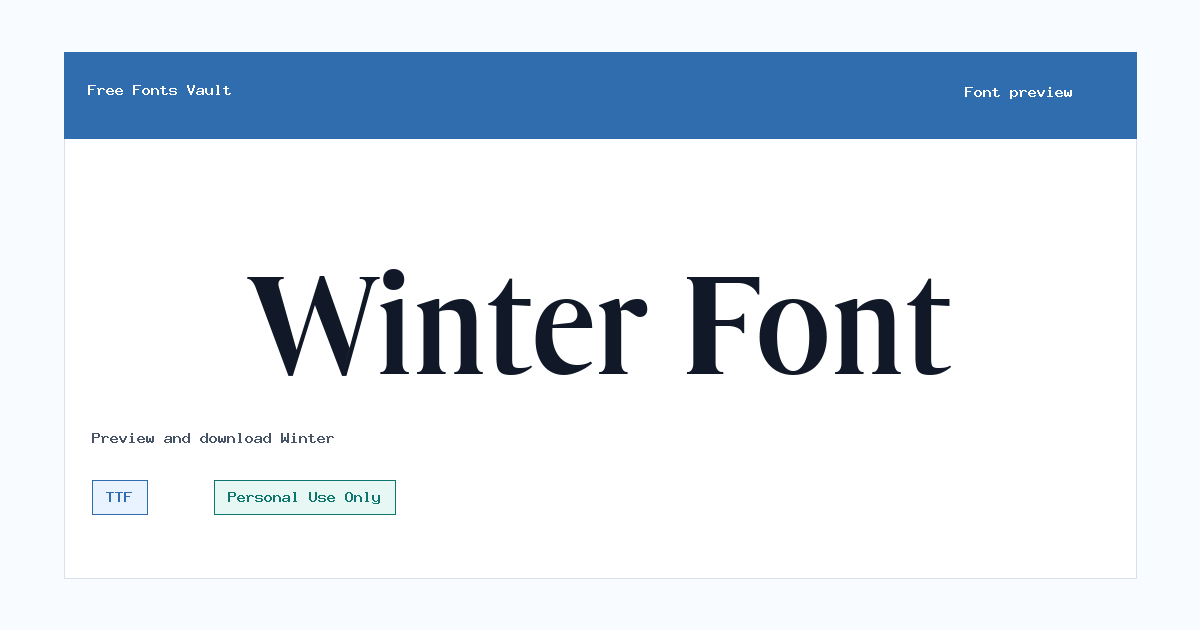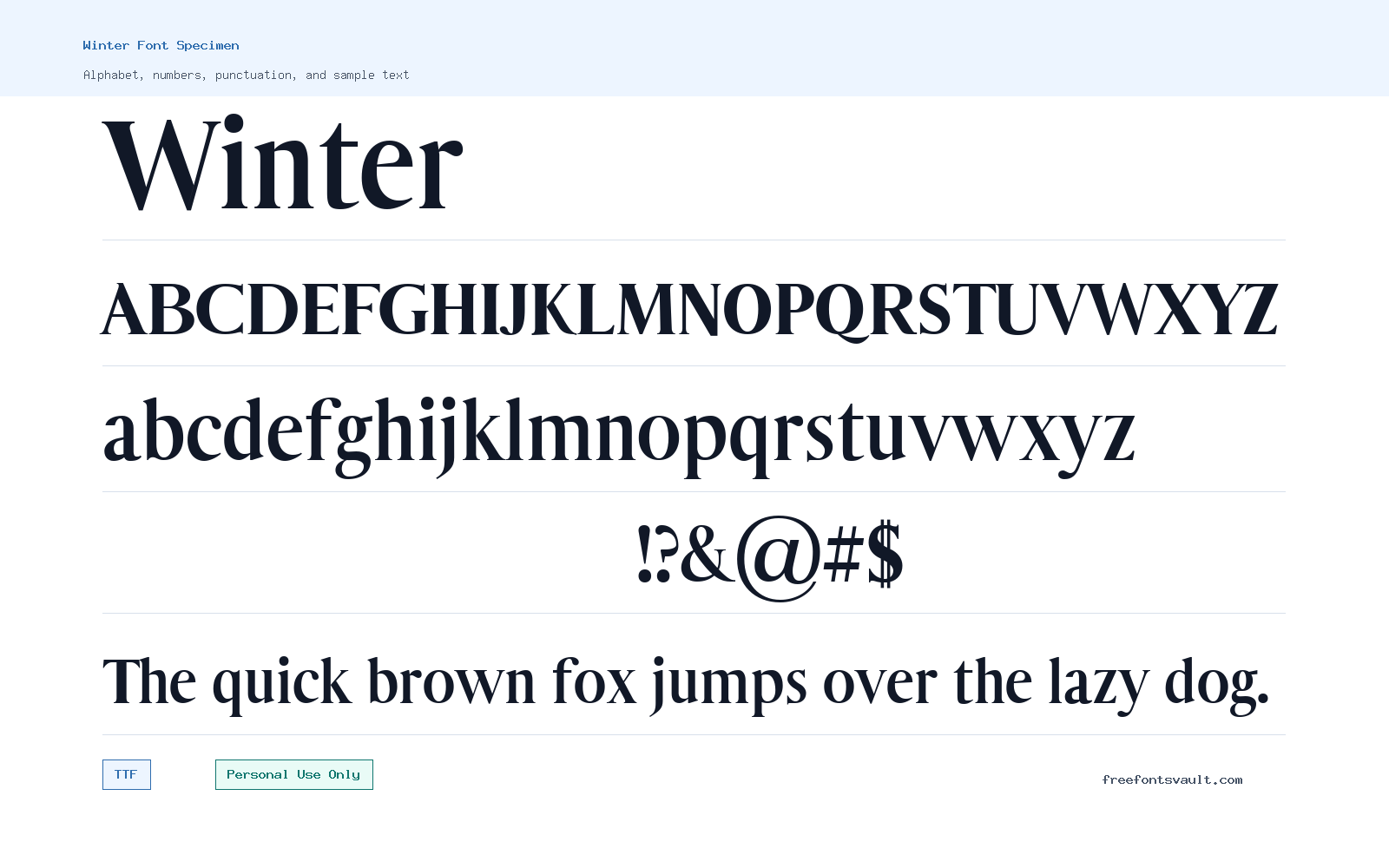
Winter
Winter Font
Winter font.
Winter is a regular-weight serif font for personal projects that need a calm, polished title style. It is best tested in the preview tool before downloading, especially if you plan to use it for longer wording or small-size text.
About Winter Font
Winter has a serif structure, which gives it a more formal and decorative feel than a plain sans serif. The regular style and 400 weight make it suitable for clean display text, short headings, invitations, quote graphics, seasonal cards, mood boards, and simple branding mockups for personal work. Since only one regular TTF file is listed, the font is easiest to use when you need a single consistent style rather than a full family with bold, italic, or multiple weights. Try it with your own wording in the preview box so you can see how the letter spacing, capitals, punctuation, and repeated letters behave before using it in a design.
For best results, use Winter where the text has room to breathe. Serif fonts can look elegant in titles, but they may lose clarity if forced into very small labels, dense paragraphs, or busy backgrounds. It should work better for short phrases than for long reading blocks unless your layout gives it enough size and contrast. Pair it with a simple sans serif for supporting text so the serif details do not compete with the rest of the design. If you are making a poster, social image, printable card, or personal logo concept, test a few sizes and background colors first. Dark text on a light background is usually the safest starting point, while textured or low-contrast backgrounds should be checked carefully.
• Single 400-weight style suited to short display text and personal design drafts
• Personal invitations, greeting cards, quote images, and seasonal graphics
• Headlines, name treatments, mood boards, and simple mockups that need a serif look
Is Winter good for body text?
It is better to test it first. Because it is a serif display-style choice with only one listed regular weight, it is safer for headings, short phrases, and decorative text than for long paragraphs.
How should I pair Winter with another font?
Pair it with a clean sans serif for captions, menus, or paragraph text. Let Winter handle the main title while the simpler font keeps the supporting text easy to read.